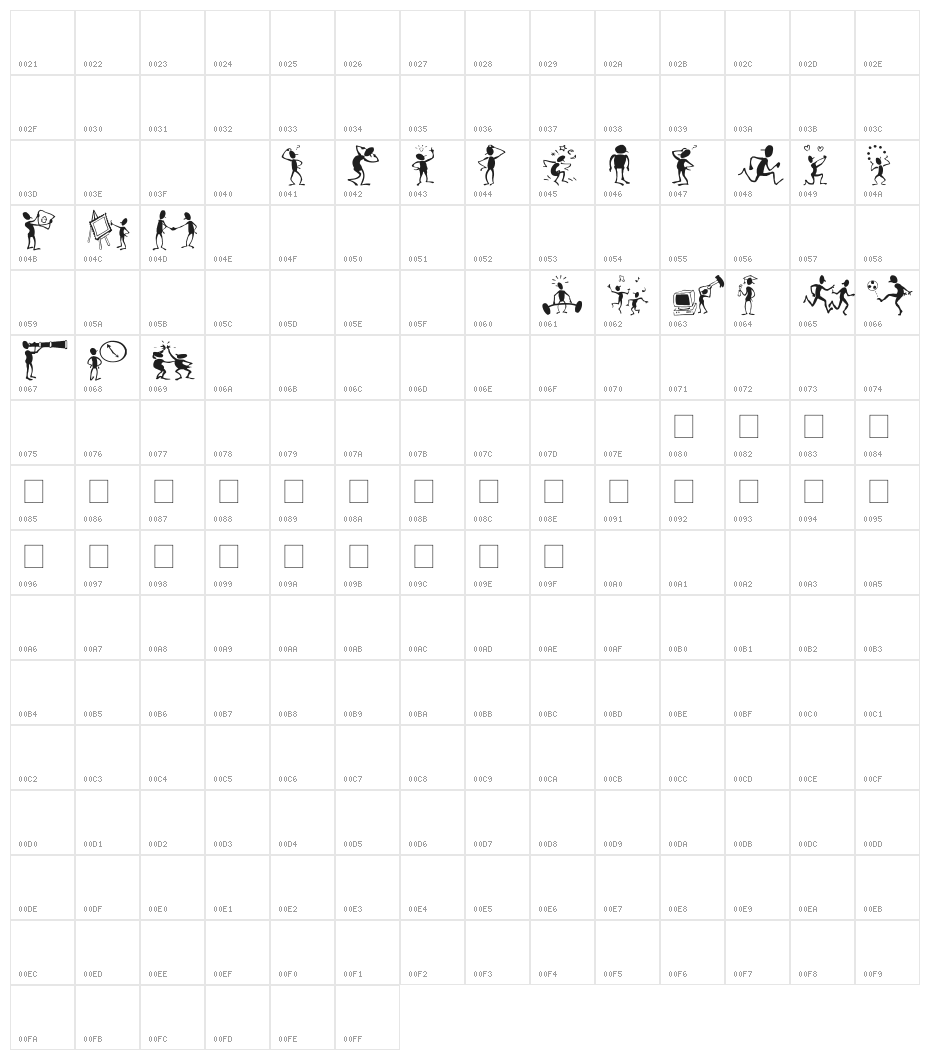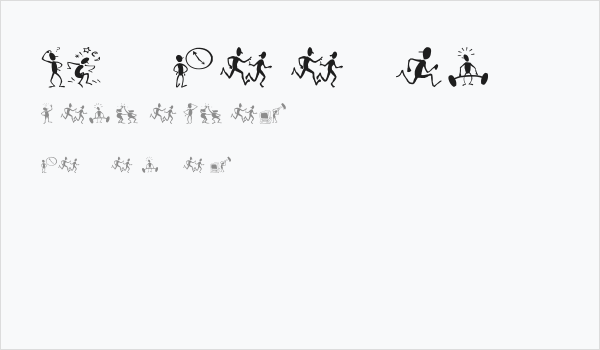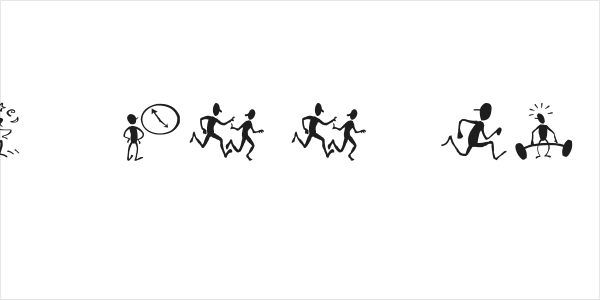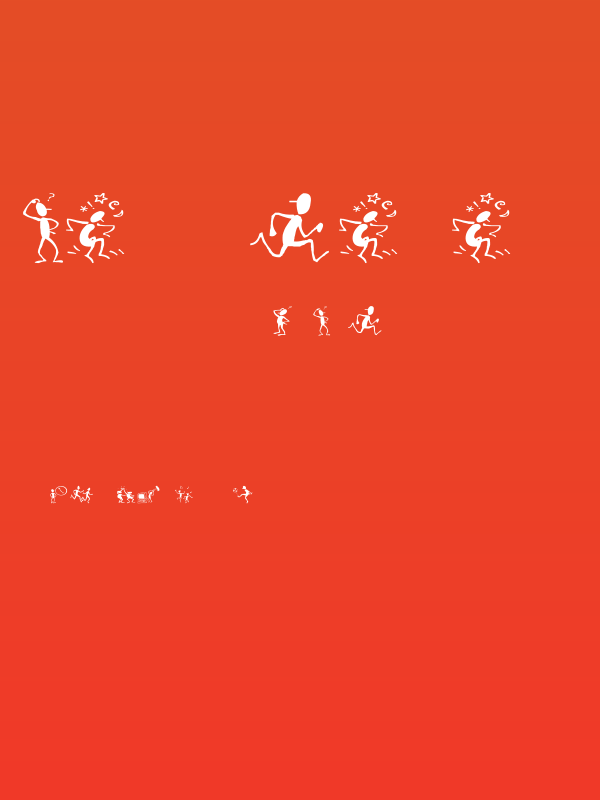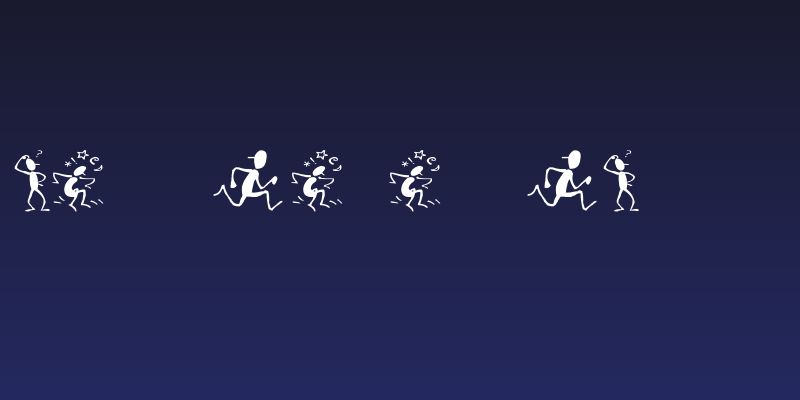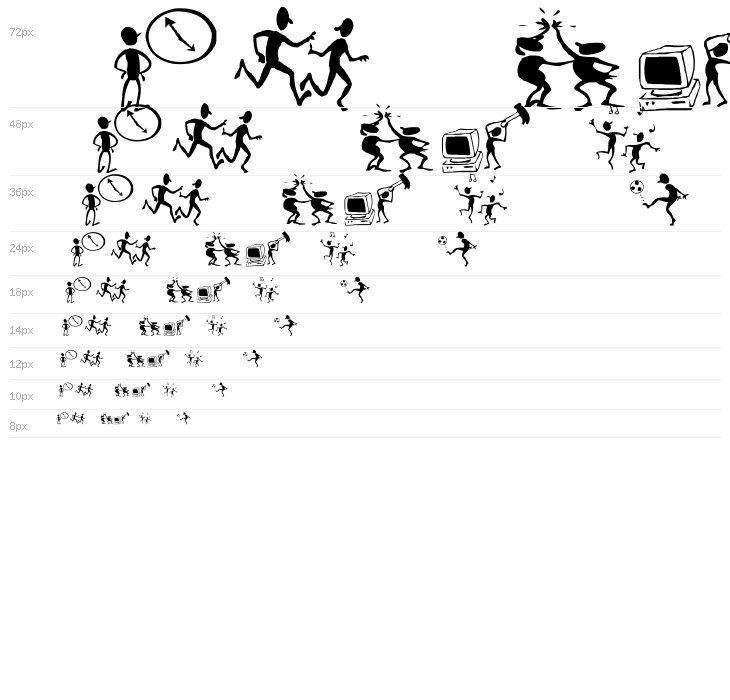
AEZ Where's Harry? Font
AEZ Where's Harry? Description
This is not a traditional font but rather a series of playful and whimsical stick figure illustrations. Each character is depicted in a unique pose or action, conveying a sense of movement and storytelling. The figures are simplistic yet expressive, using minimal lines to suggest various activities and emotions. The style is reminiscent of doodles or sketches, with a hand-drawn quality that adds charm and personality. These illustrations could be used to add a fun and informal touch to projects, particularly those aimed at children or creative endeavors.
| Overall Style | Playful, Whimsical, Hand-drawn |
| Use Case | Illustrations, Decorative elements, Storytelling |
| Proposed Projects | Ideal for children's books, educational materials, playful branding, or creative storytelling projects. |